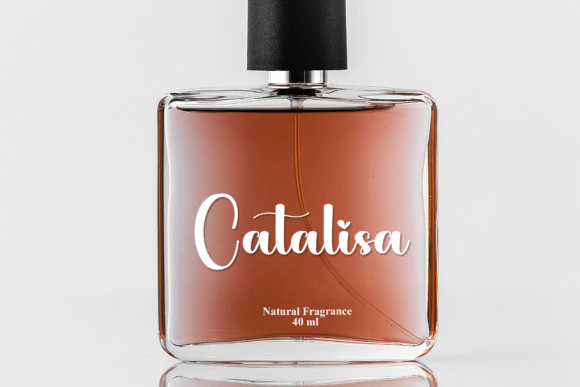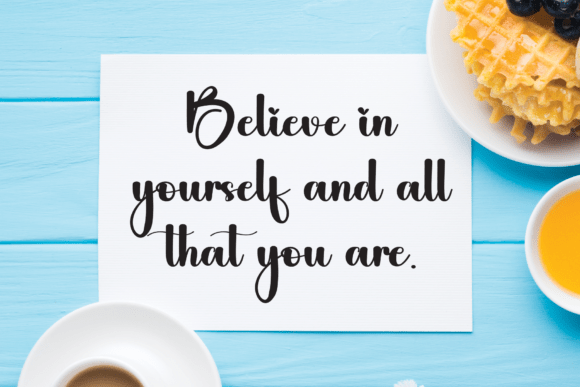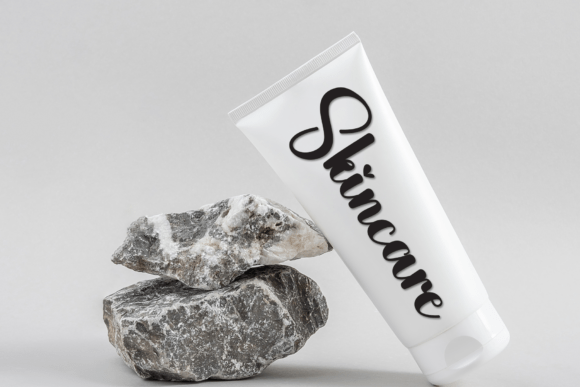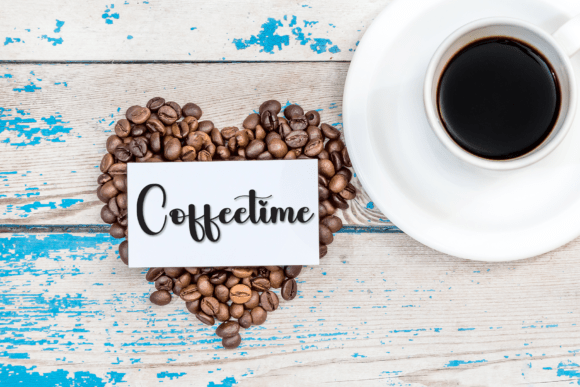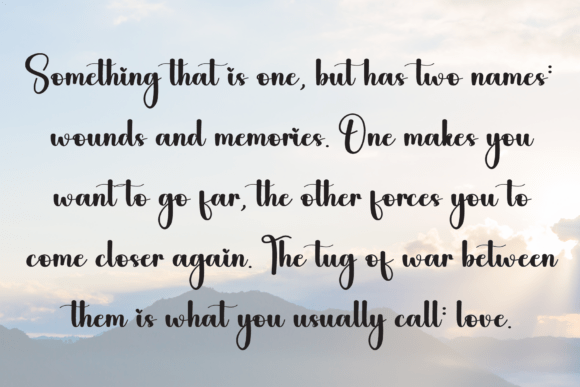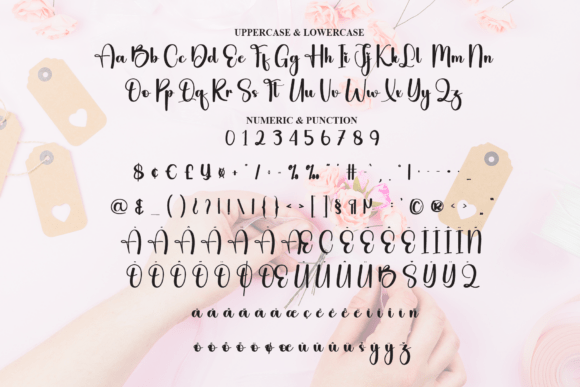
Introducing Alphabet Handmade Font: The Sweetest Addition to Your Design Toolbox
Have you ever been in the middle of a design project, pouring your heart and soul into every detail, only to get stuck on one thing: the font? I certainly have! It was a wedding invitation project that led me to discover the charming Alphabet Handmade Font. My client wanted something that exuded warmth, love, and a touch of playfulness. After scouring through countless font libraries, I stumbled upon this gem, and it instantly became the perfect fit.
A Designer’s Delight: What Makes Alphabet Handmade Font So Special?
Alphabet Handmade Font is more than just a font; it’s a statement piece for your designs. Its cursive, handwritten style blends sweetness with friendliness, making it an ideal choice for romantic wedding invites, heartfelt cards, or any creative project that needs a dash of uniqueness.
What I Love About Alphabet Handmade Font ✨
- ✅ Unique Character: Each letter is crafted with love, providing a distinctive look that sets it apart from more generic fonts.
- ✅ Versatility: Perfect for a wide range of projects, from digital designs to print materials.
- ✅ Easy to Read: Despite its handmade feel, the font remains clear and readable, even at smaller sizes.
- ✅ Emotional Connection: It adds a personal touch to your designs, making them more relatable and engaging.
- ⚠️ Limited Use in Small Text: While it’s generally readable, using it for body text in smaller sizes might not be the best choice due to its cursive nature.
- ⚠️ Requires Attention to Kerning: As with many handwritten fonts, you might need to adjust the kerning to ensure a smooth flow of text.
- Experiment with the OpenType features, such as ligatures and stylistic alternates, to add more character to your text.
The Story Behind Alphabet Handmade Font
While the origins of Alphabet Handmade Font might be shrouded in mystery, it’s easy to imagine a designer with a passion for handwriting and creativity crafting such a delightful font. Perhaps it was created during a summer retreat, surrounded by vintage letters and the gentle hum of a typewriter. Whatever its backstory, the end result is a font that feels both nostalgic and refreshingly new.
| Is Alphabet Handmade Font suitable for body text? | While it’s primarily designed for display and headings, it can be used for short paragraphs. However, for longer texts, a more readable font might be preferable. |
| Does Alphabet Handmade Font include any special features? | Yes, it supports OpenType features such as ligatures and stylistic alternates, adding more versatility to your designs. |
In conclusion, Alphabet Handmade Font is a charming addition to any designer’s toolkit. Its unique blend of friendliness and style ensures that your projects stand out with a touch of whimsy and warmth. Whether you’re designing wedding invites, crafting heartfelt messages, or simply looking for a font that tells a story, Alphabet Handmade Font is sure to exceed your expectations.